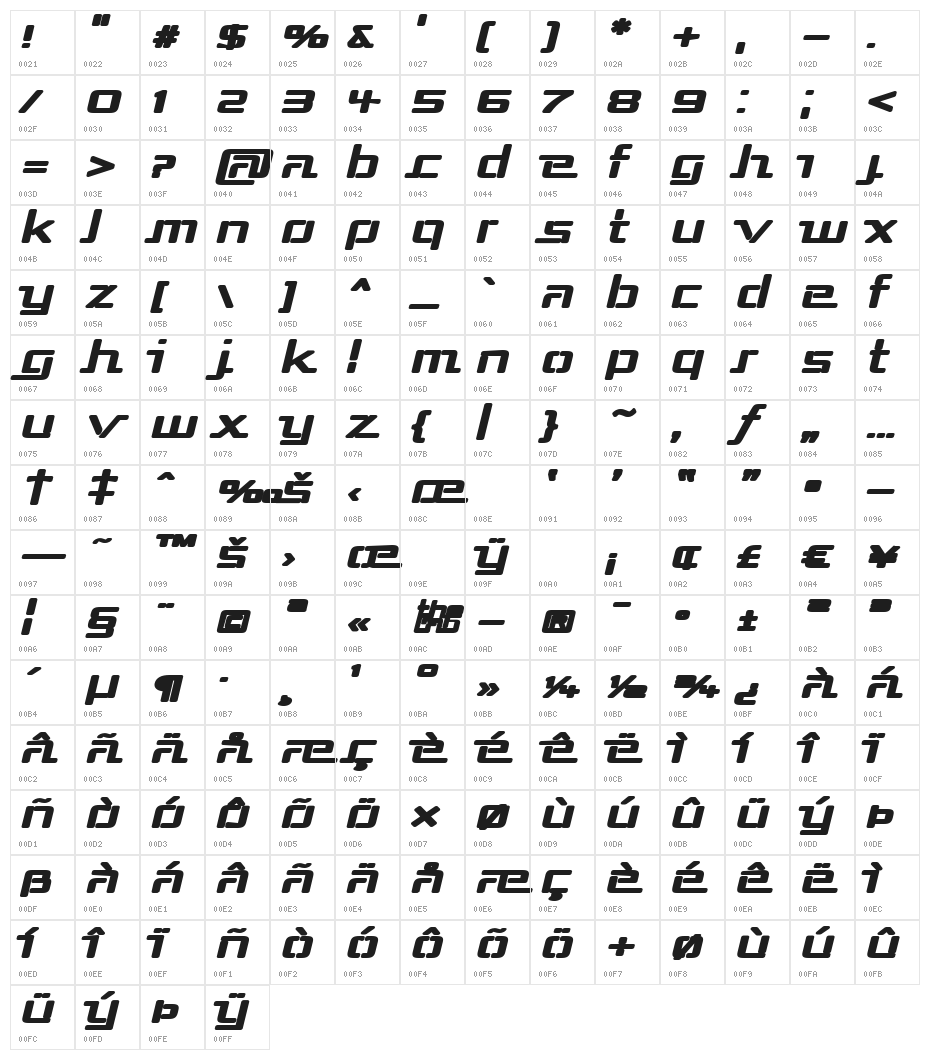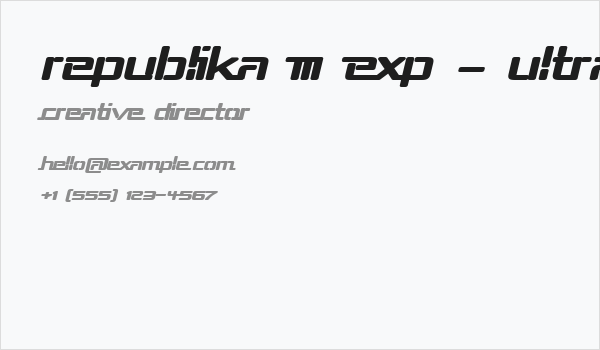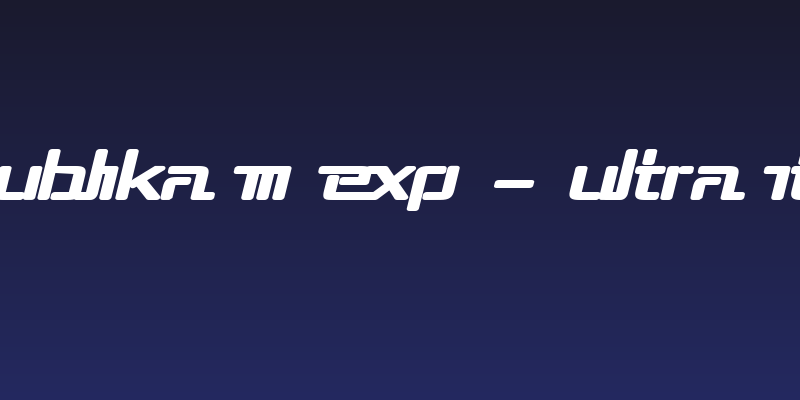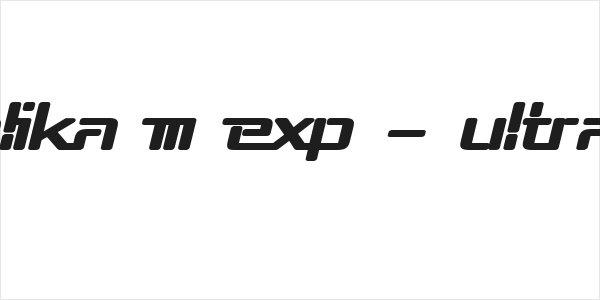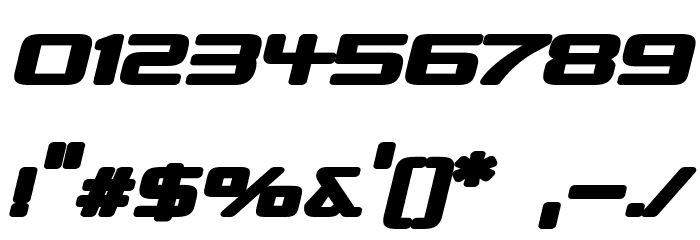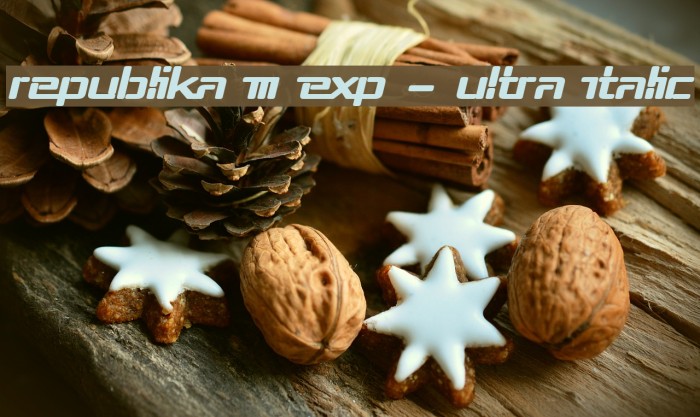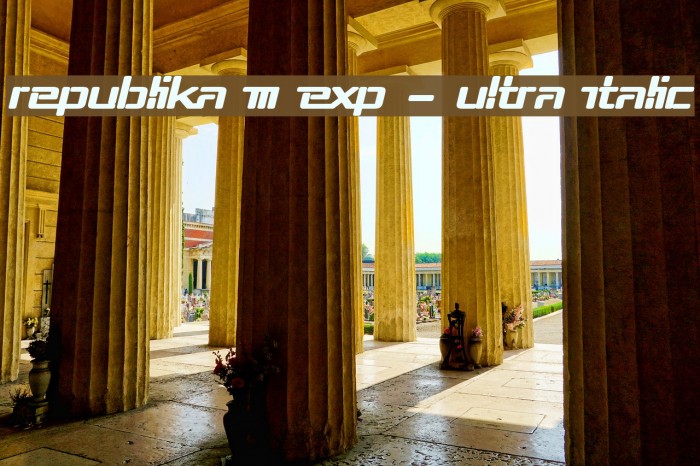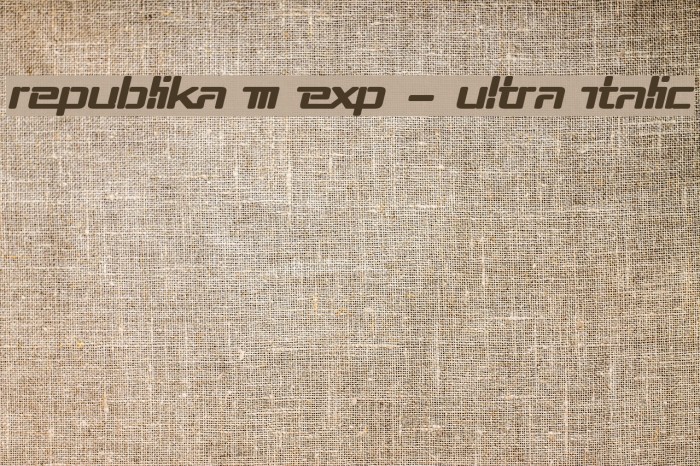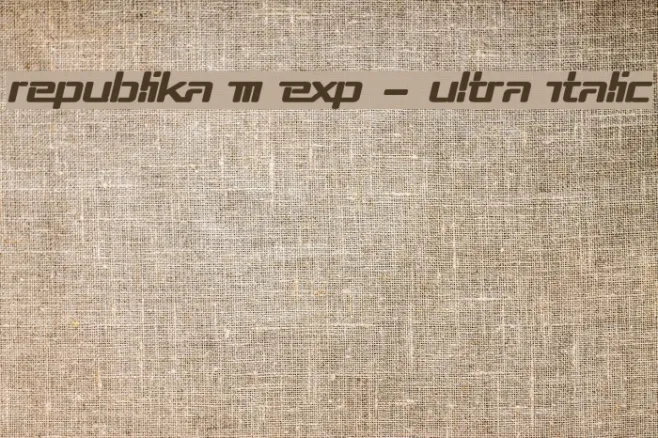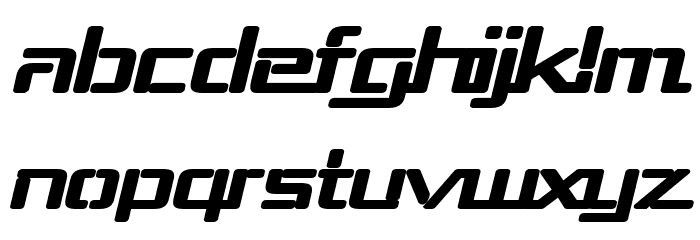
Republika III Exp - Ultra Italic Font
Republika III Exp - Ultra Italic Description
This font features a futuristic and dynamic style with a strong italic slant, giving it a sense of motion and speed. The characters are bold and wide, with a geometric and angular design that emphasizes a modern aesthetic. The strokes are consistent in thickness, providing a uniform appearance across all characters. The font includes both uppercase and lowercase letters, numbers, and a variety of special characters, making it versatile for different design needs. The overall look is sleek and contemporary, suitable for projects that require a bold and impactful visual presence.
| Categories | Futuristic |
| Width | Expanded |
| Use Case | Logos, Headlines, Posters |
| Proposed Projects | Ideal for technology branding, sports team logos, video game titles, and sci-fi themed designs. |